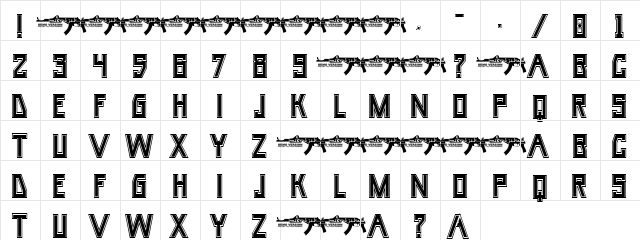
Umar College Font Preview
Umar College Umar College
Umar College Font Details
| Style | Umar College |
| Foundry | Mikrojihad |
| Designer | Mikrojihad |
Design Context for Umar College Typeface
Umar College has the bold swagger of sports branding: strong, assertive letterforms designed to dominate headlines and jerseys alike.
Built for sports team identities, athletic apparel, event posters, and high-energy promotional material.
Pro Tip: Umar College thrives on contrast — try it large, bold, and tight against a clean background for maximum visual impact.